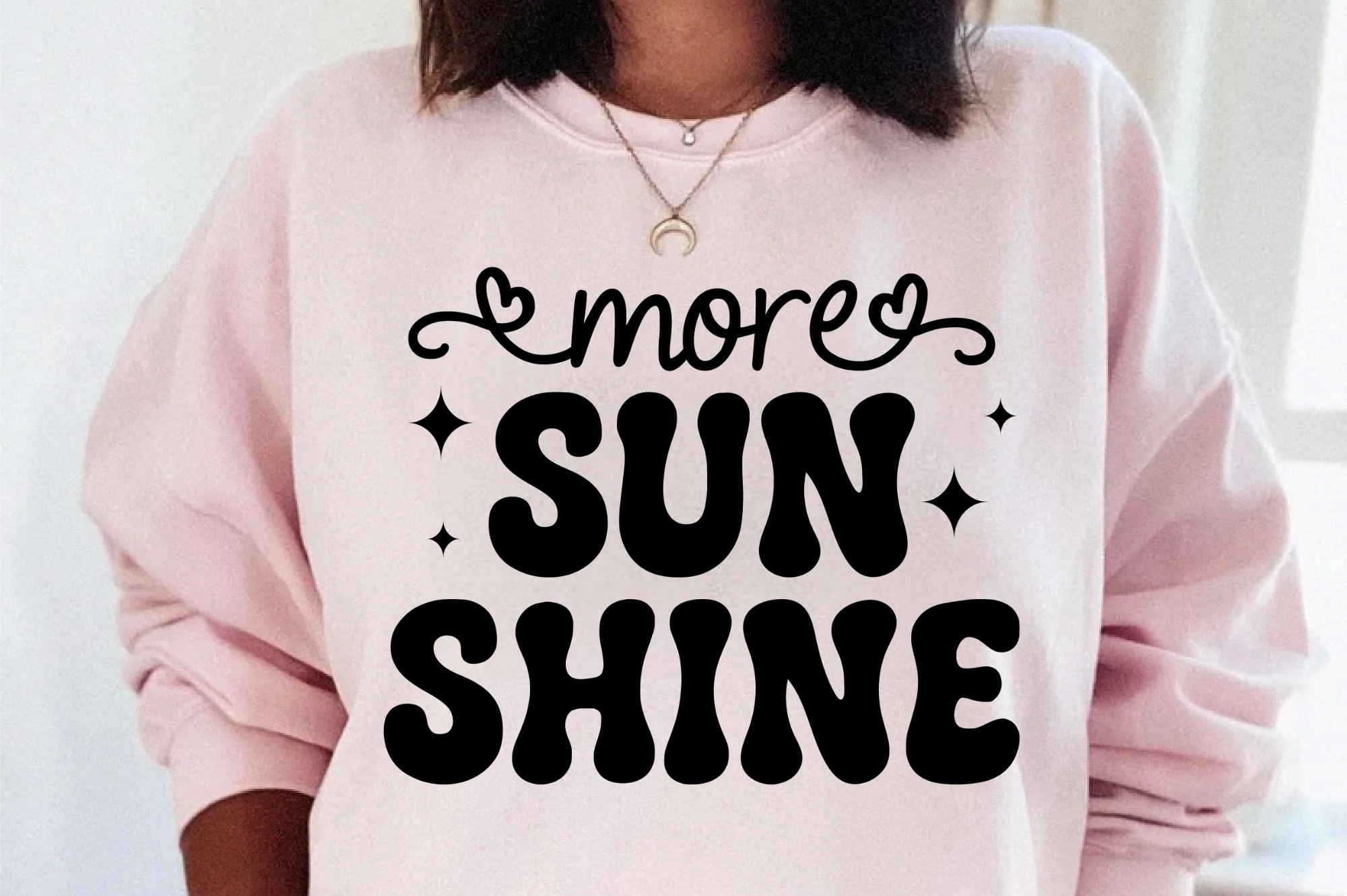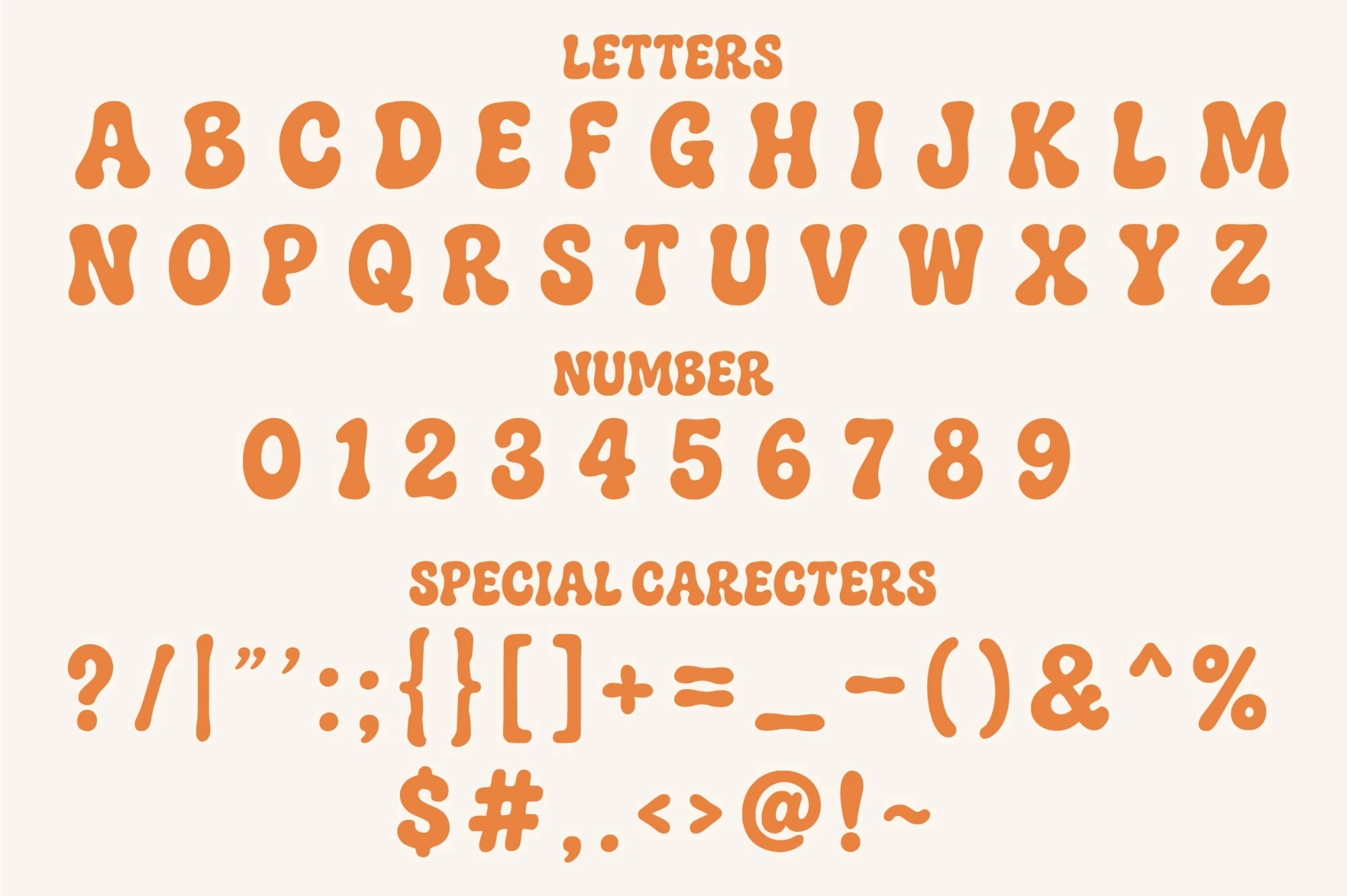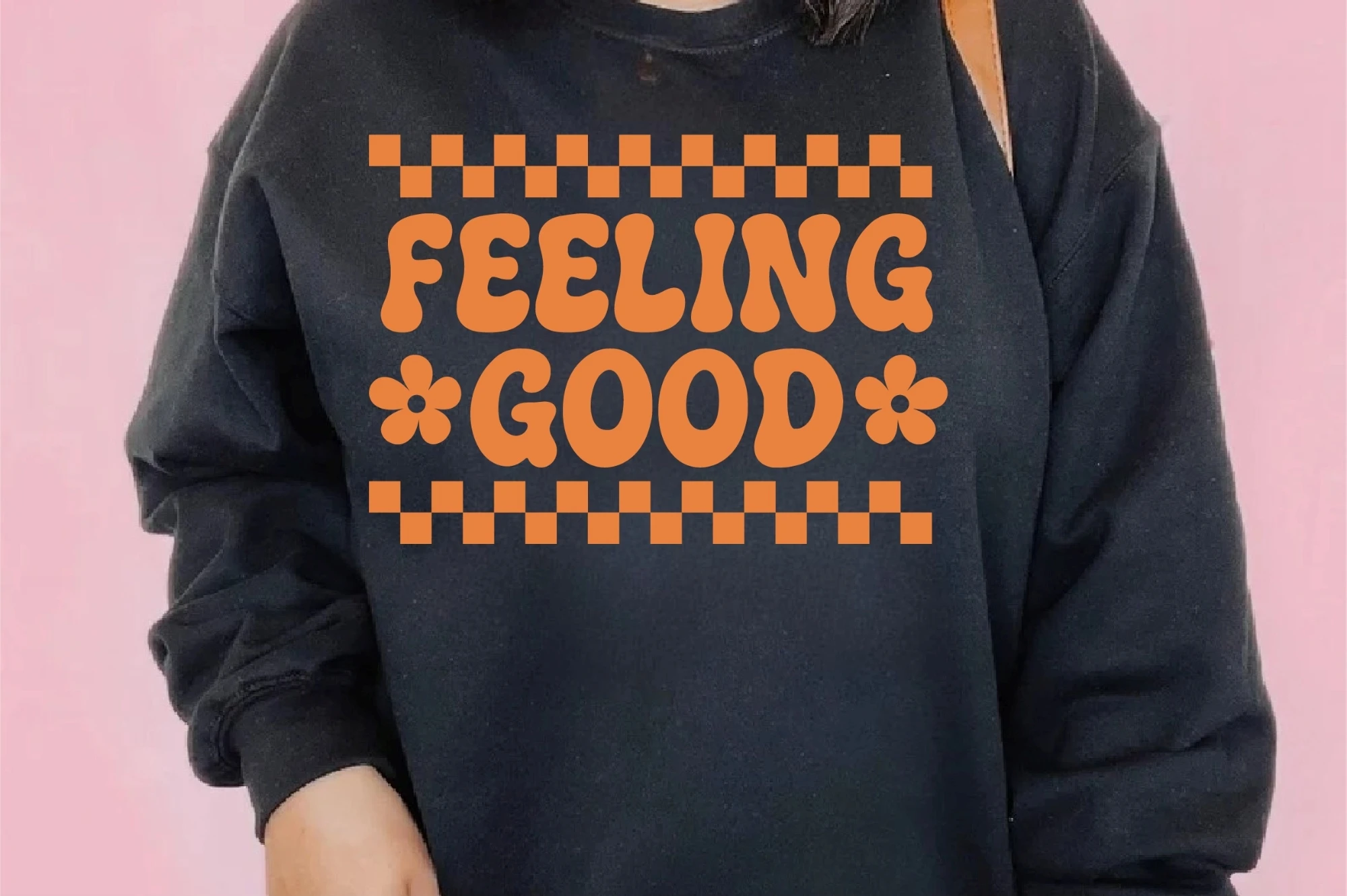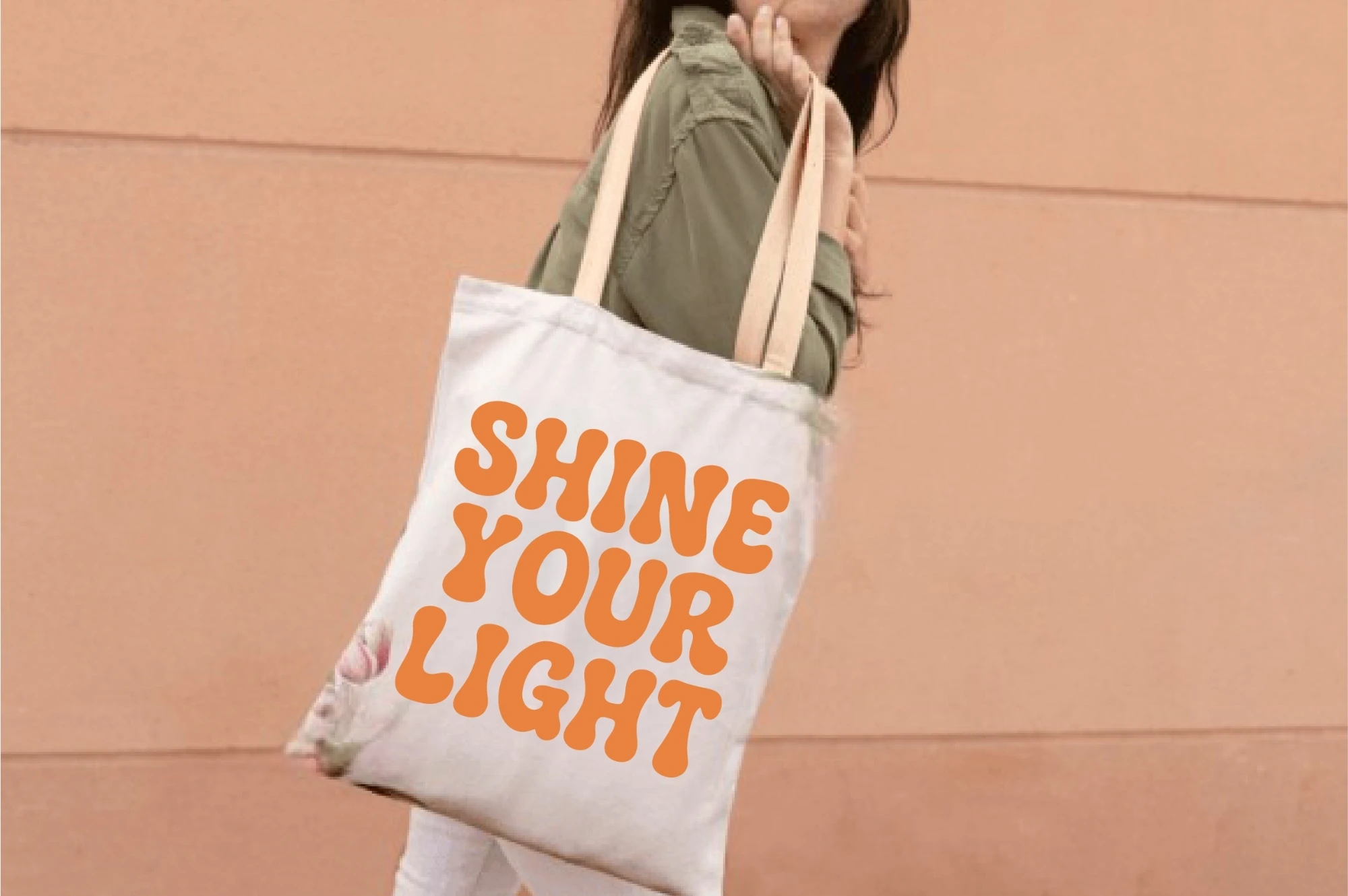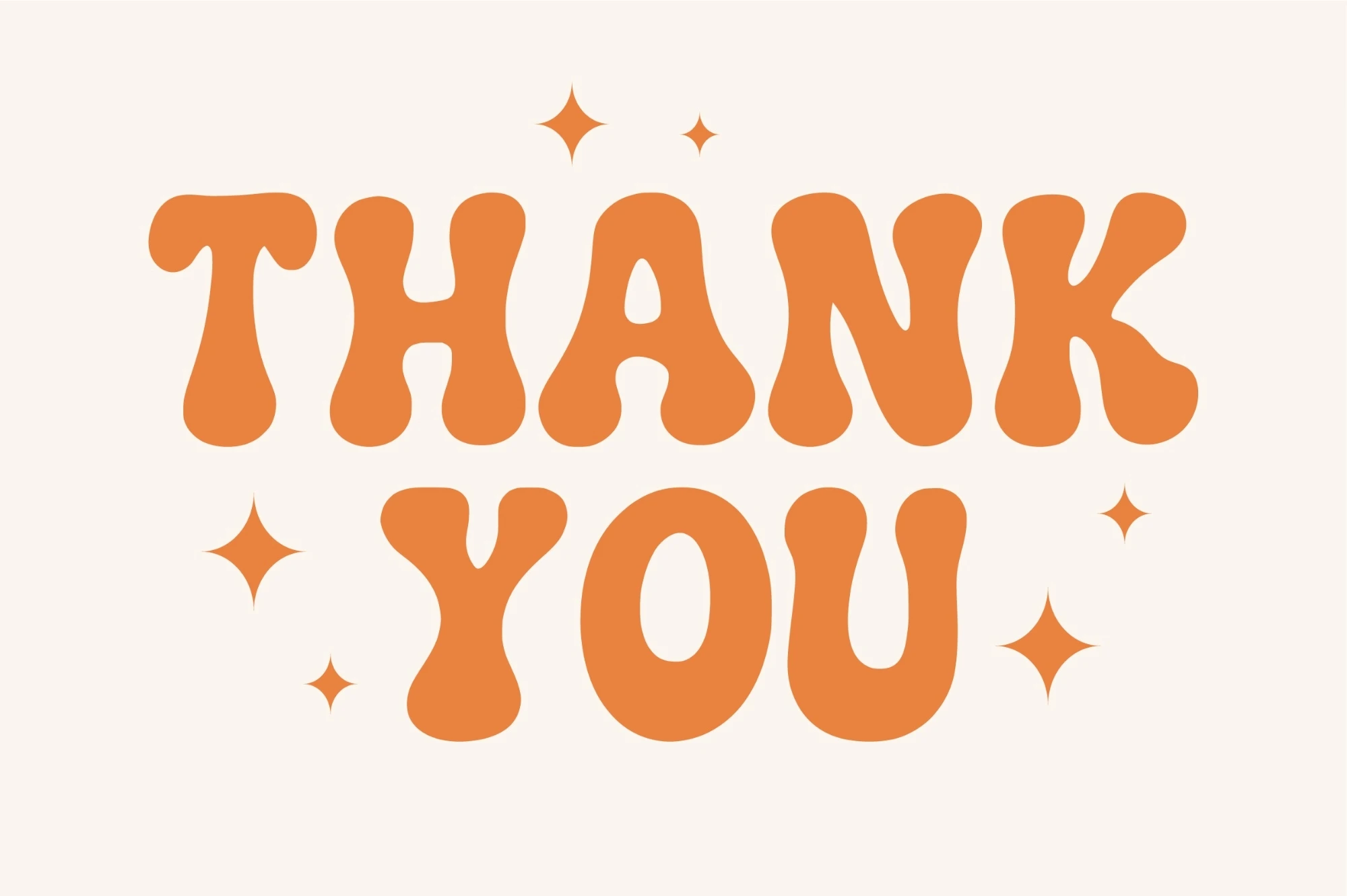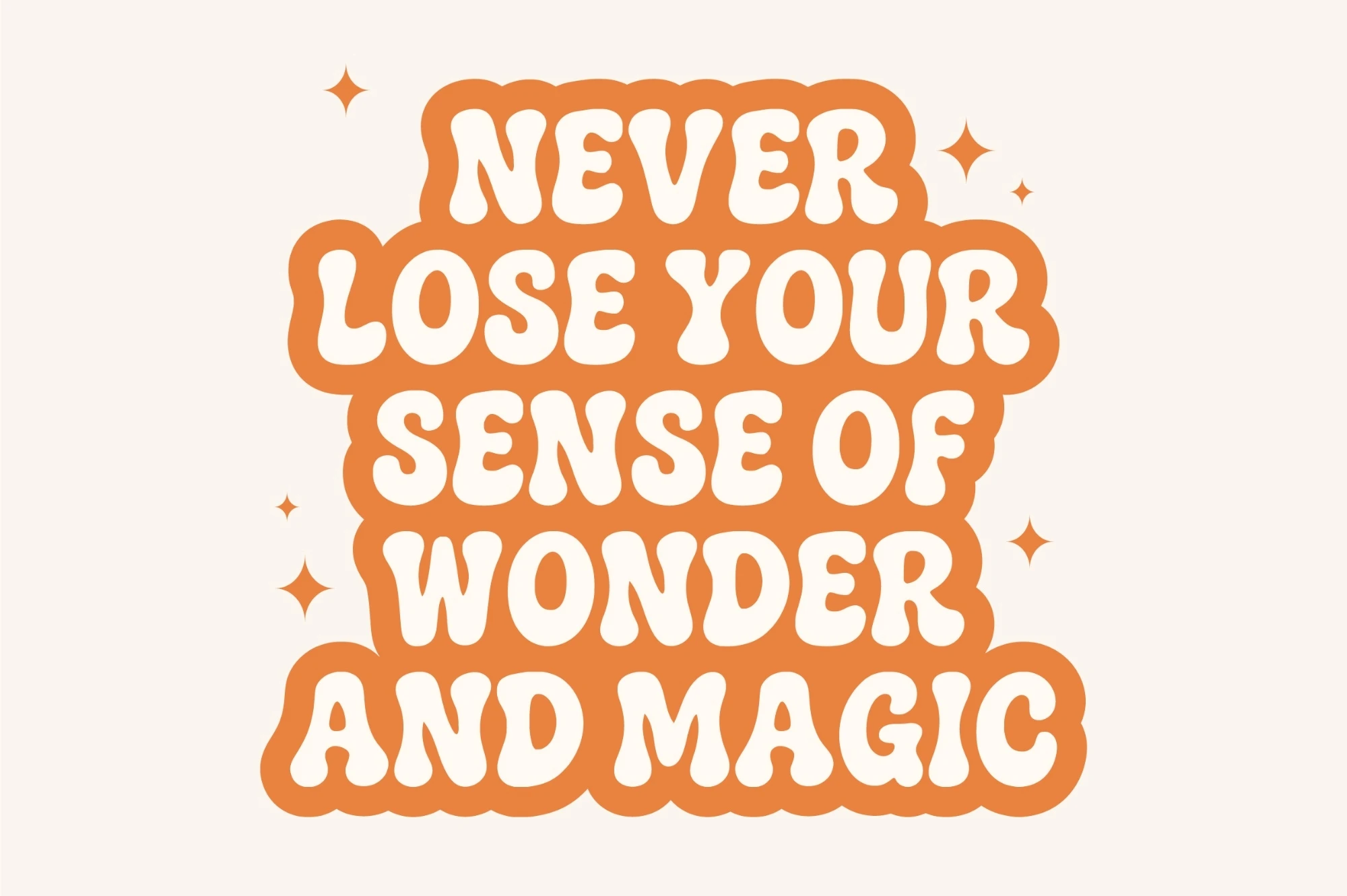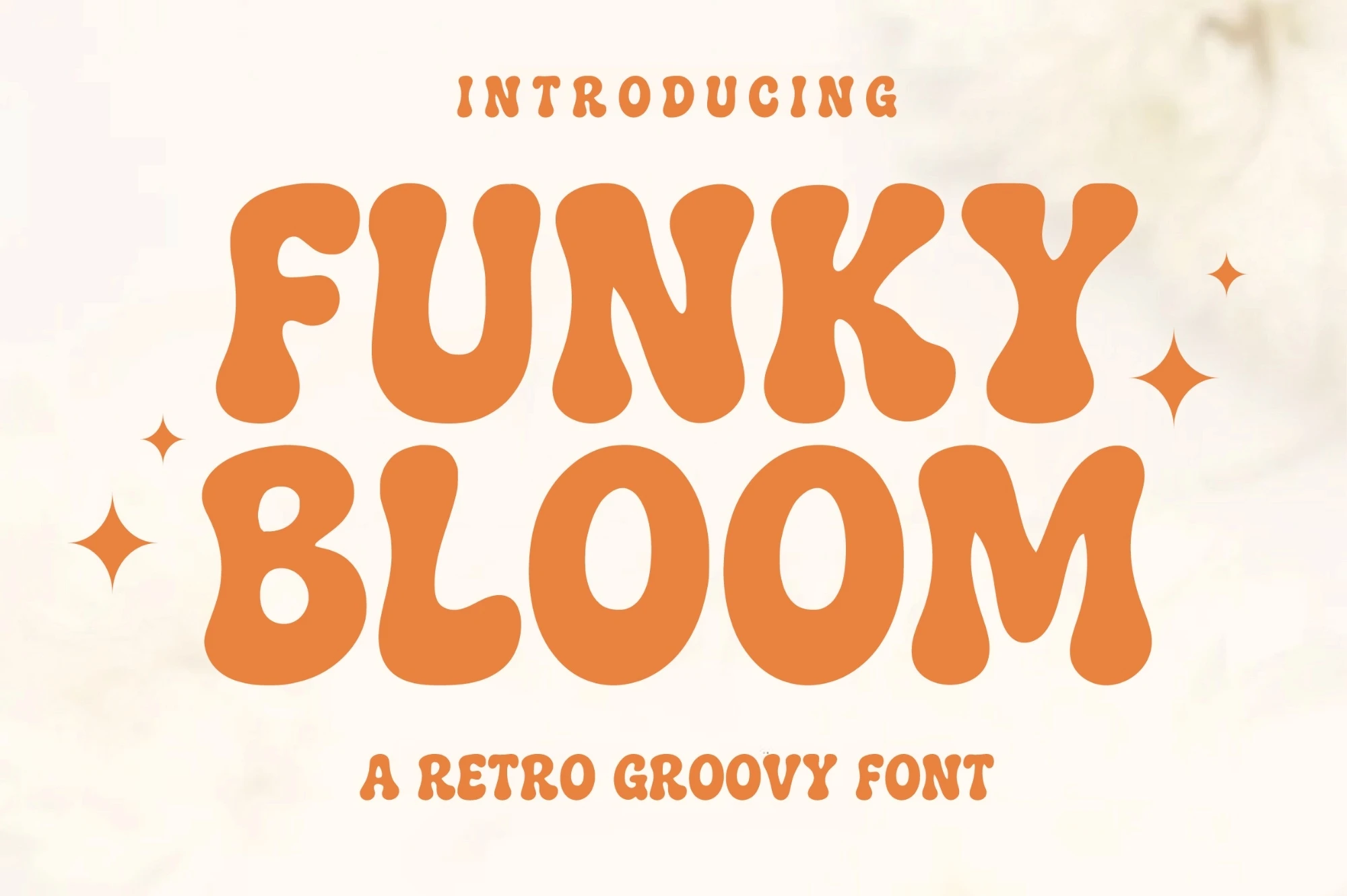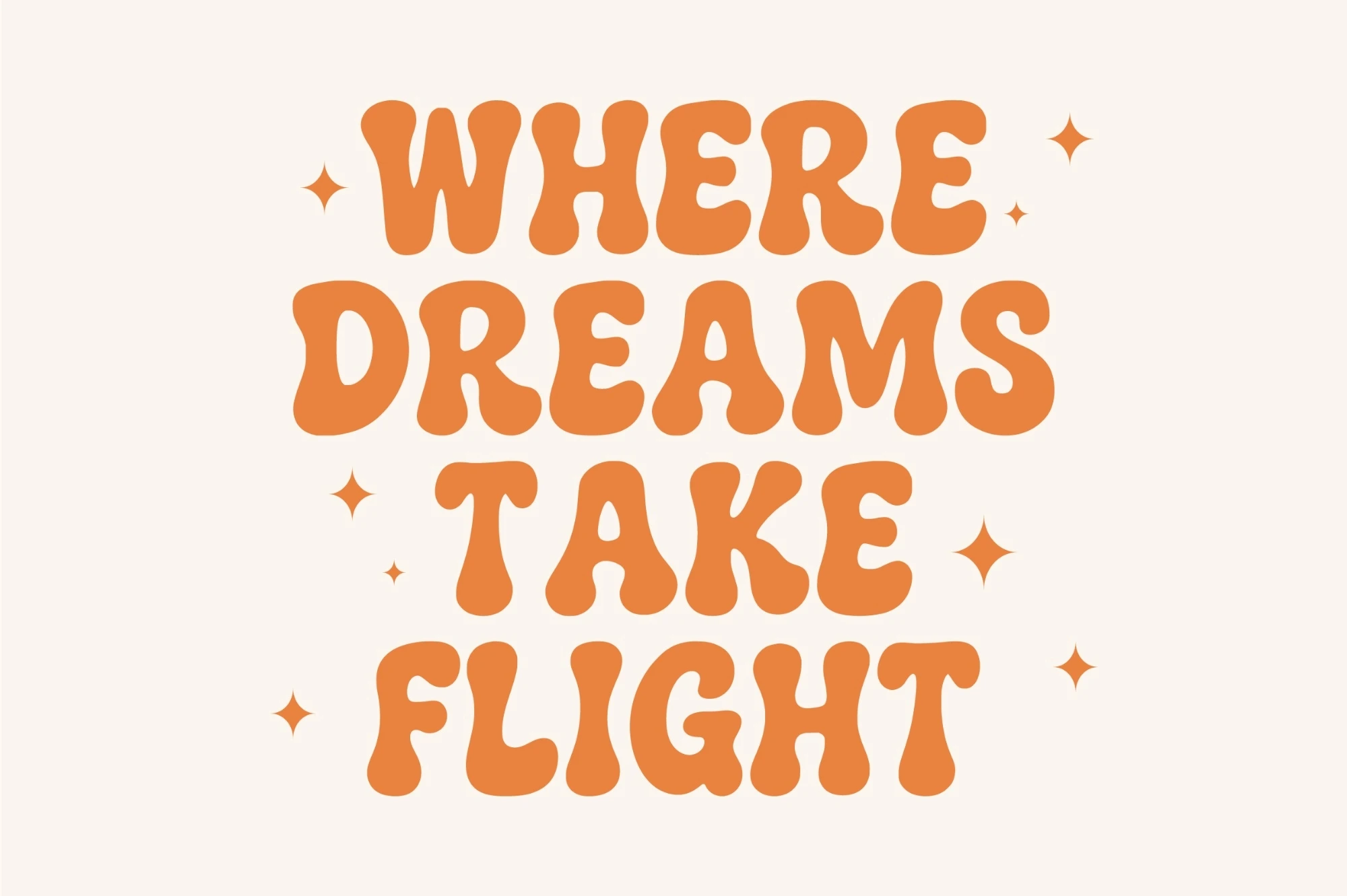
Funky Bloom is a playful retro bubble-style font featuring soft curves, organic shapes, and a charming 70s-inspired groove. Each letter carries a fun, rounded blob aesthetic that adds personality to any design. Perfect for headings, T-shirt quotes, stickers, kids projects, posters, branding, and creative digital artwork.
This font delivers a bold, friendly look with consistent stroke weight, smooth edges, and a warm nostalgic feel. Its ideal for designers who want a cheerful, eye-catching style that stands out in both print and digital projects.
Bring a touch of bubbly retro fun to your designs with Funky Bloom!
Funky Bloom
Funky Bloom Font